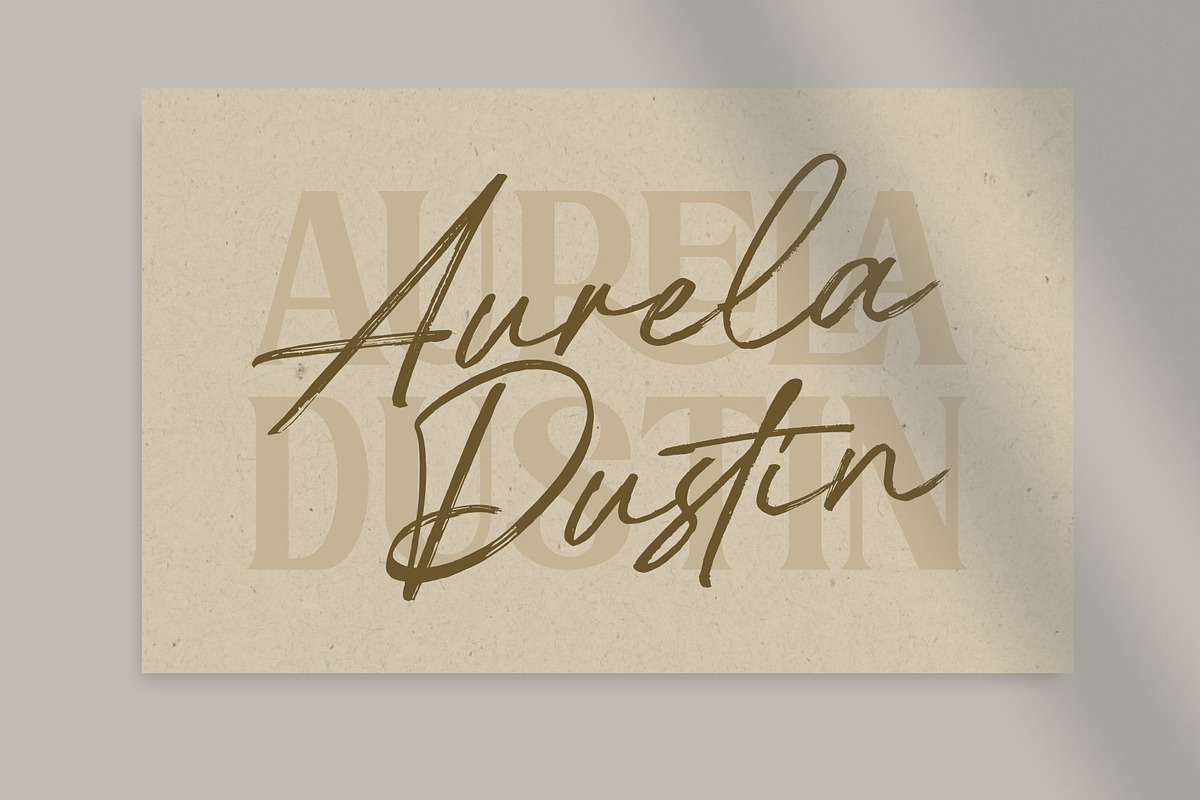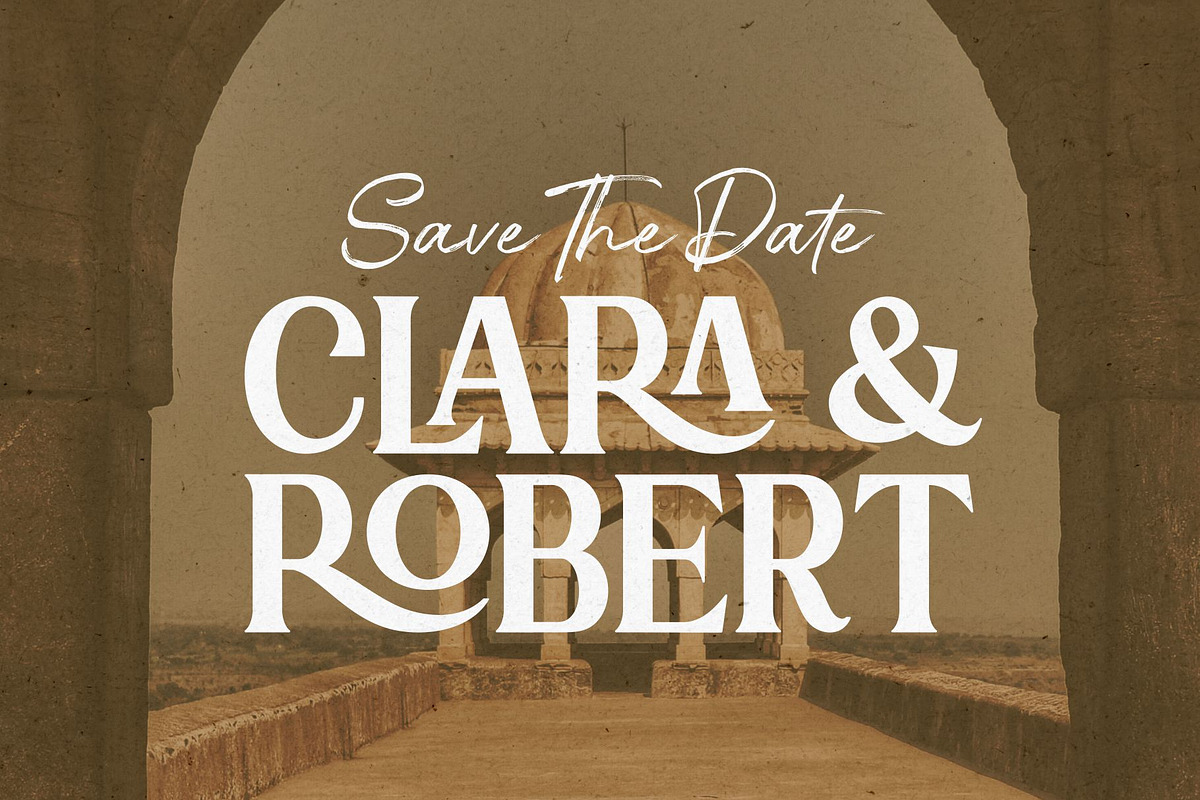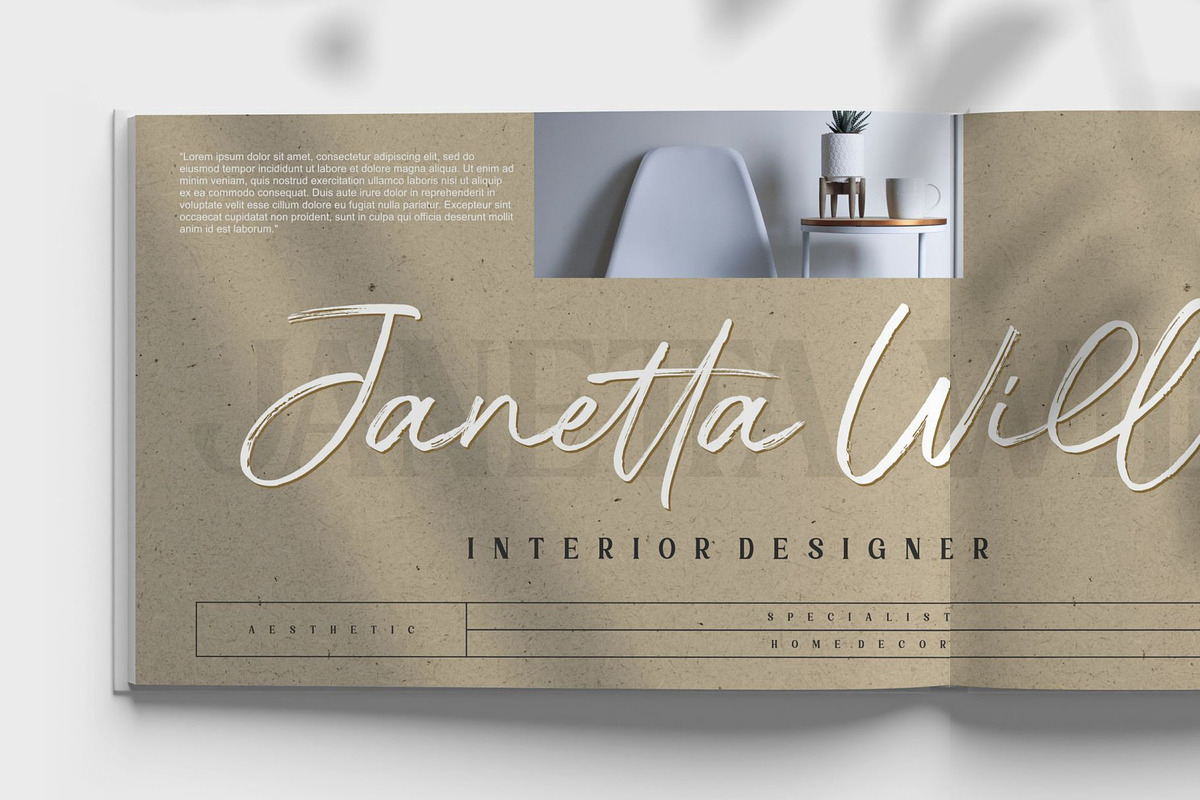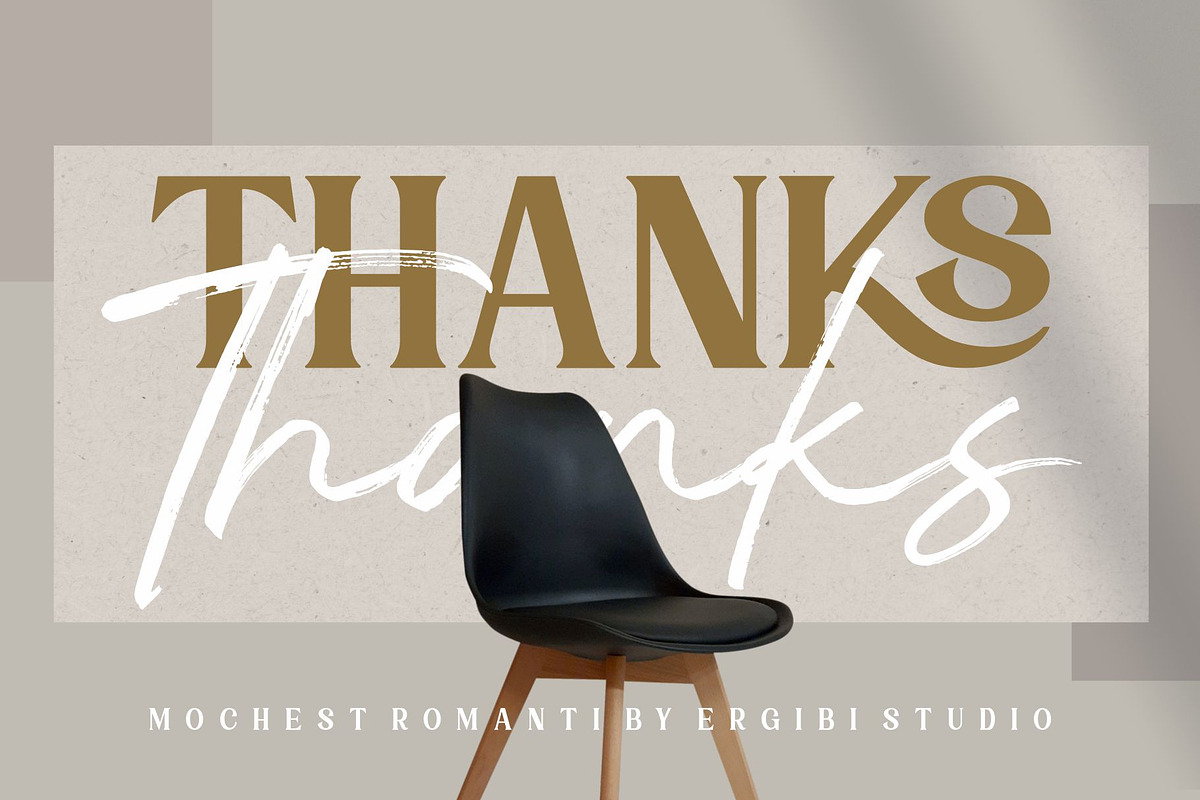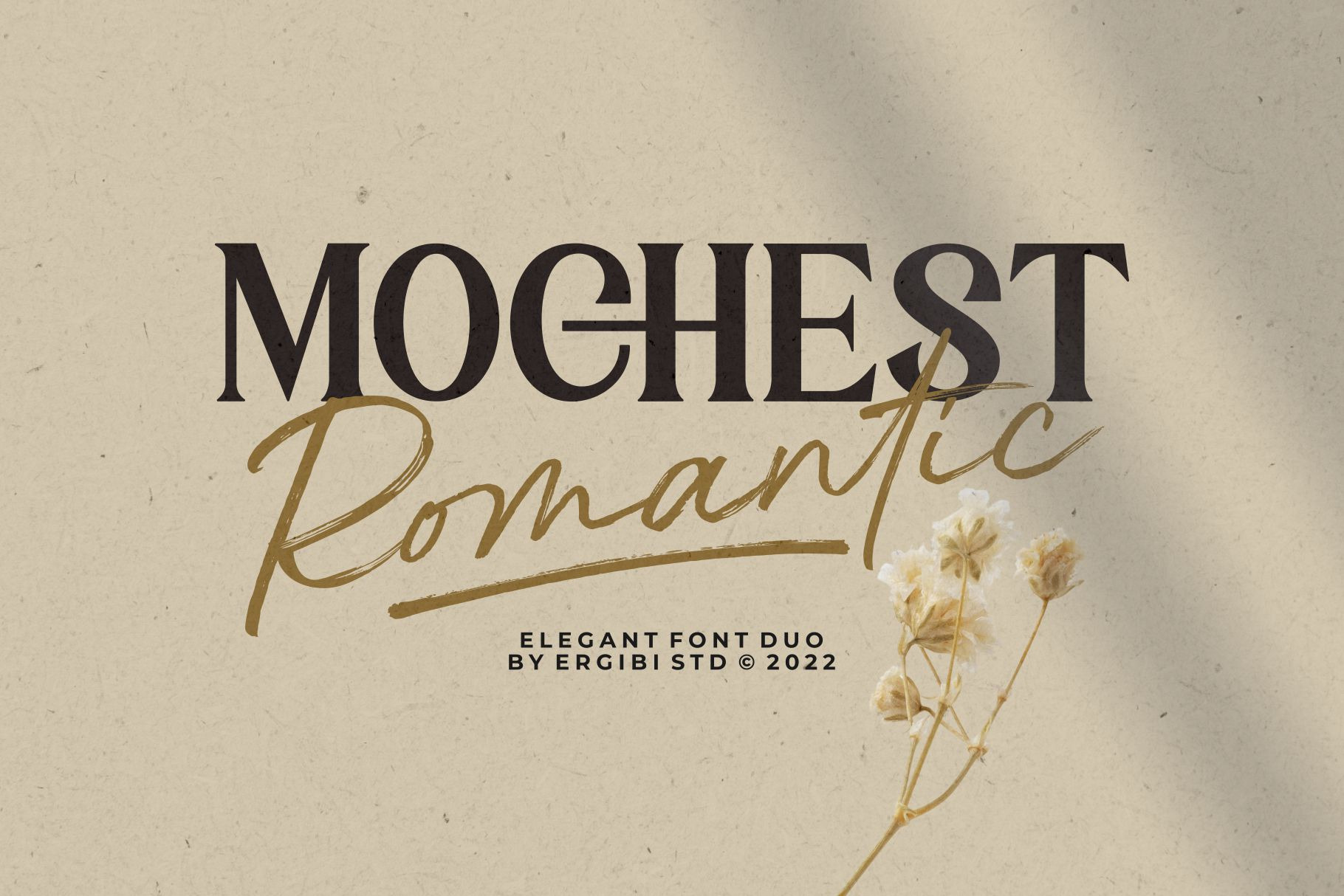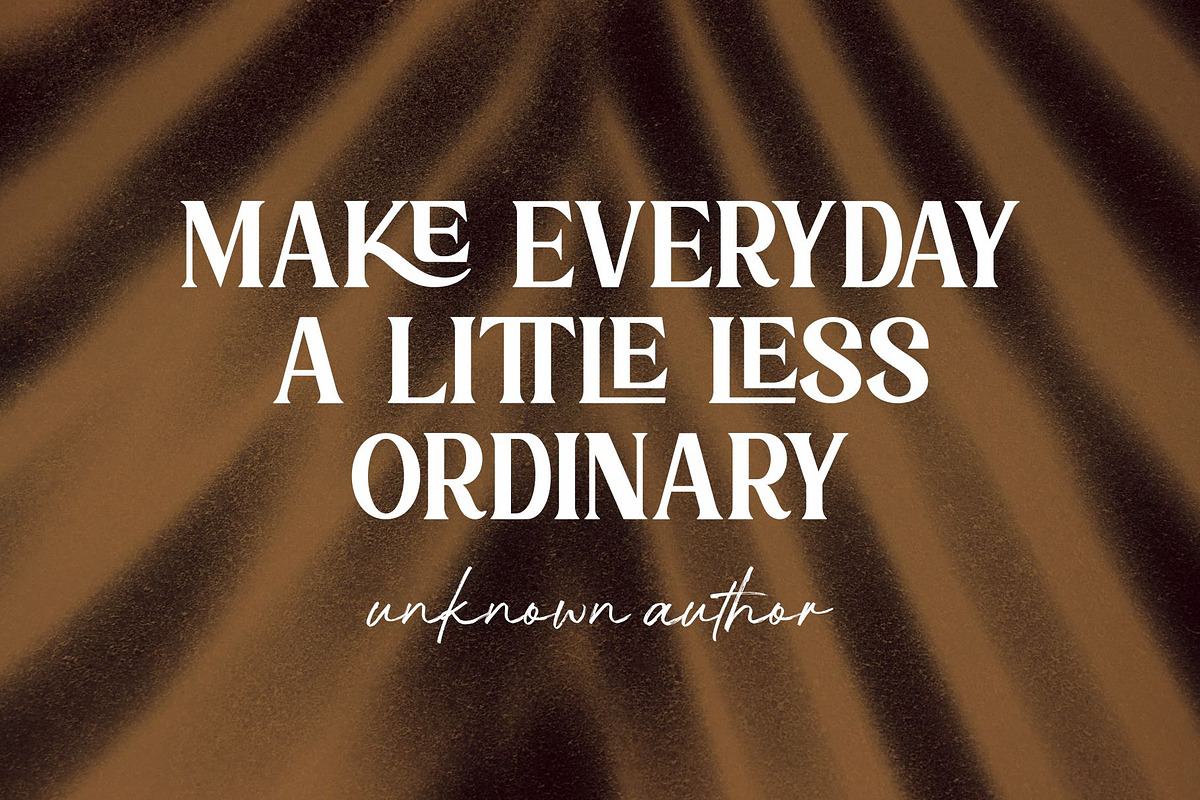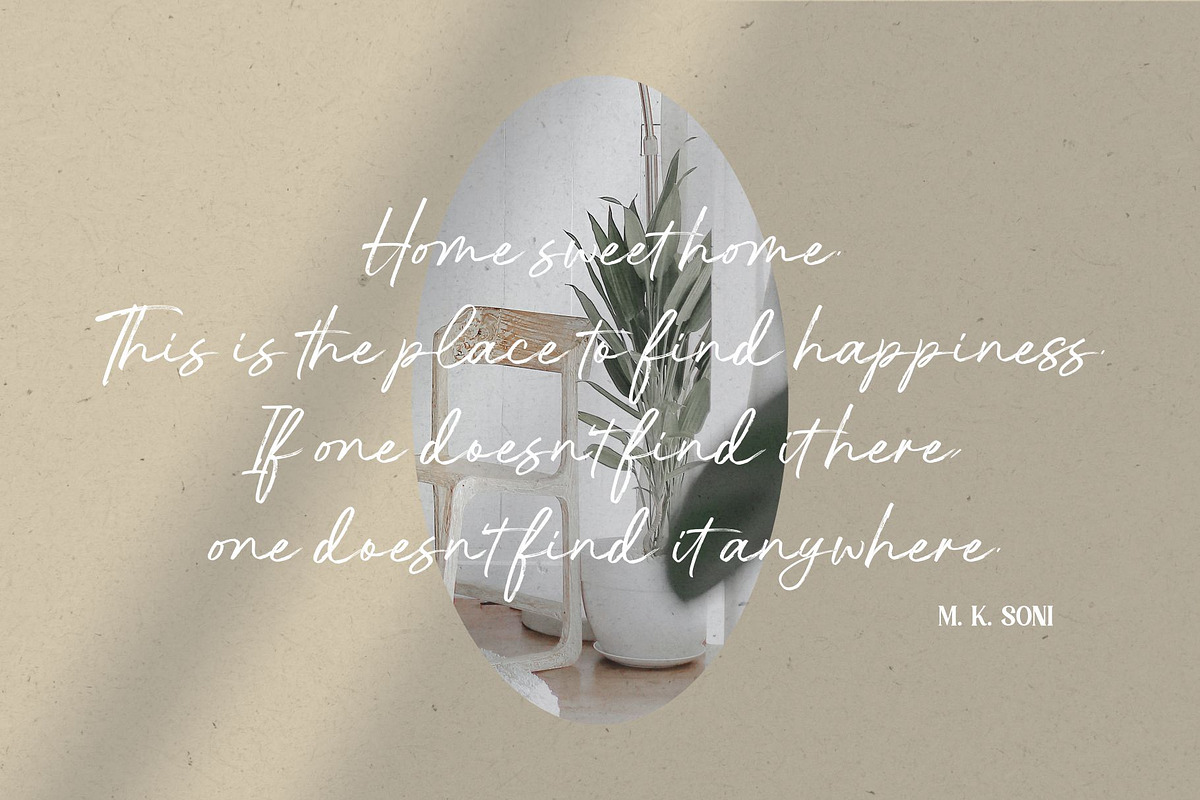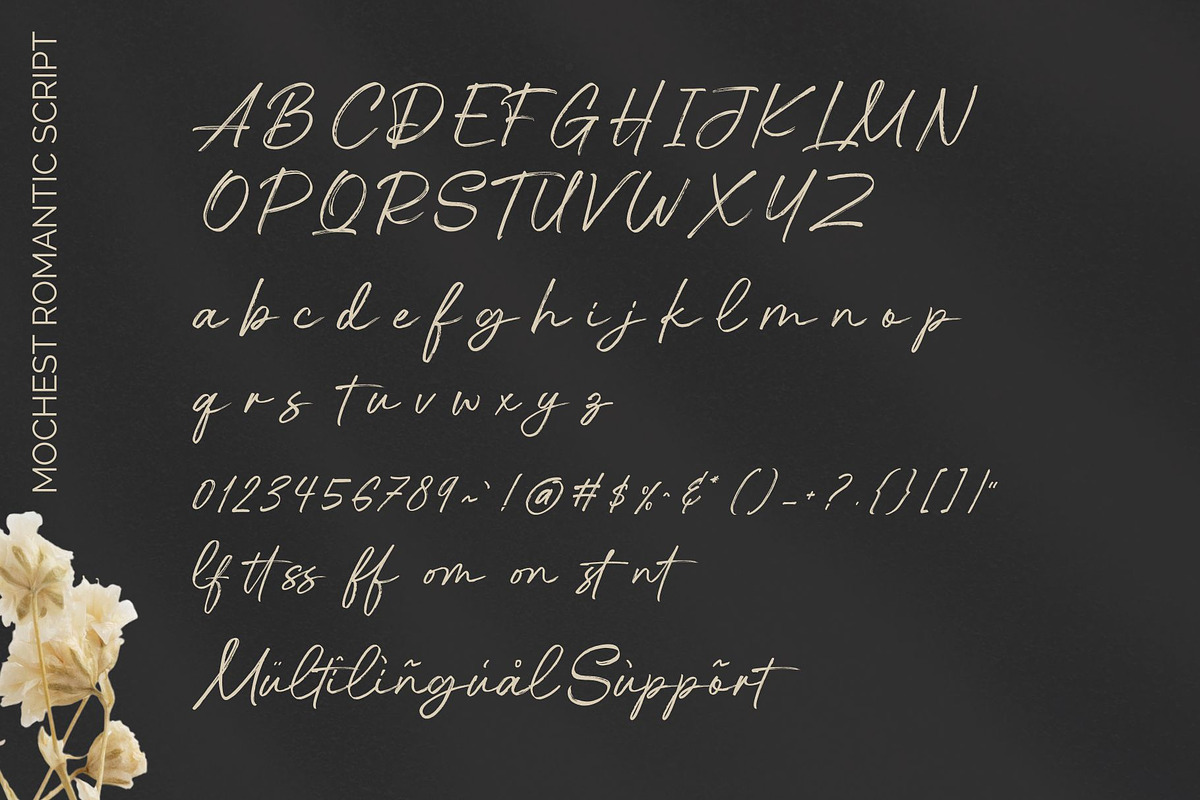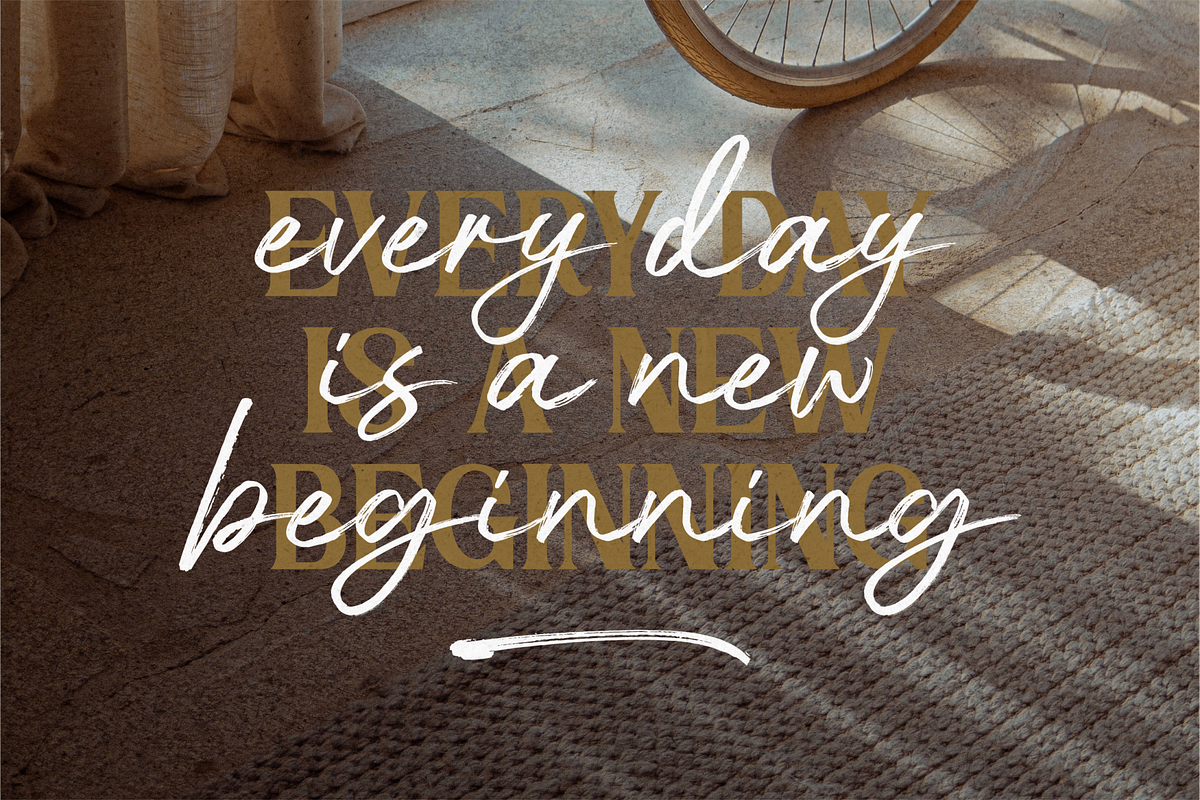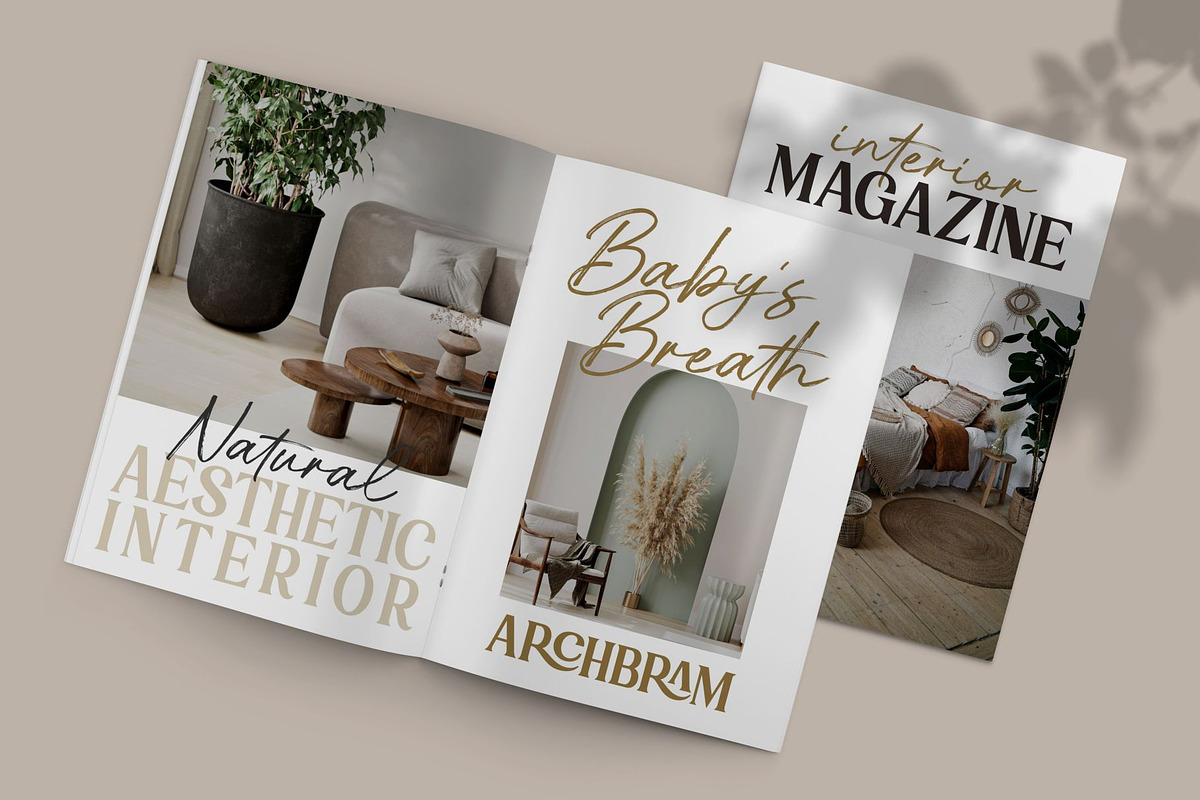
Mochest Romantic - Elegant Font Duo
Mochest Romantic, these fonts are of two types serif and script. This typeface has been made carefully to make sure its premium quality and luxury feel. The ligatures on script makes this typeface unique and stands out rather than the regular serif font, perfectly for headlines, logos, posters, packaging, T-shirts,coffee shops, restaurants, magazine’s headers, signs or gift/post cards,cafe’s and weddings or any type of advertising purpose.
- Mochest Romantic include, numbers, punctuation,alternates, and it also supports other languages
- Mochest Romantic it also supports multilingual